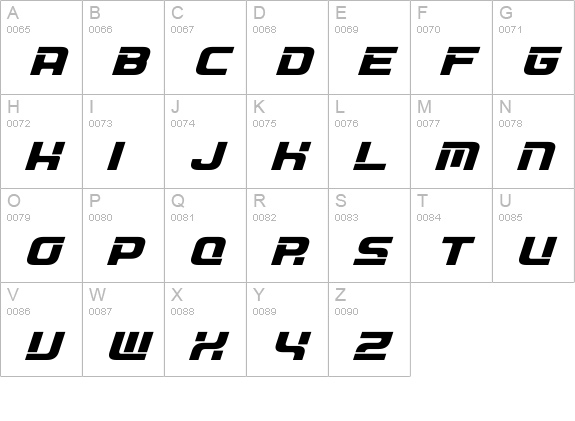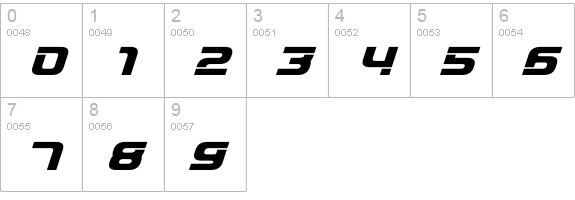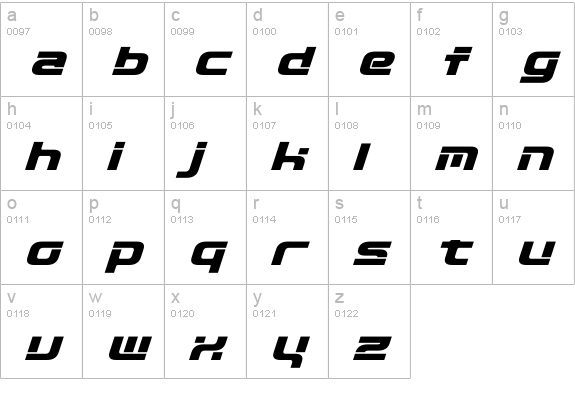
D3 Circuitism Oblique is a distinctive, italic variant in the D3 typeface family \xE2\x80\x94 well suited to design and typography projects.
D3 Circuitism Oblique is a stunning and modern font that exudes a sense of innovation and technological excellence. With its sleek and sharp design, this font is perfect for projects that require a contemporary and cutting-edge look. The unique oblique style of D3 Circuitism Oblique adds a dynamic and energetic feel to any text, making it ideal for logos, headlines, and branding materials. Its clean lines and geometric shapes give it a futuristic appeal, while the slanted letterforms add a touch of sophistication and elegance. One of the best things about D3 Circuitism Oblique is that it is available for free download at FontsMarket.com. This means that you can easily access this amazing font and use it in your design projects without any cost. Whether you are a professional graphic designer or a hobbyist, this font offers you the opportunity to create stunning and impactful designs without breaking the bank. Furthermore, D3 Circuitism Oblique offers a wide range of characters and glyphs, allowing you to create unique and personalized designs. Its versatility makes it suitable for various applications, from digital designs to print materials. With D3 Circuitism Oblique, you can take your designs to the next level and captivate your audience with its modern and eye-catching aesthetic. In conclusion, D3 Circuitism Oblique is a must-have font for anyone looking to add a touch of innovation and style to their design projects. Its sleek and dynamic design, coupled with its availability for free download at FontsMarket.com, makes it a valuable asset for any designer. Don't miss out on the opportunity to elevate your designs with this exceptional font.